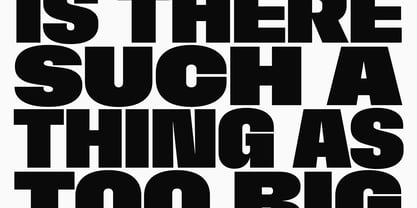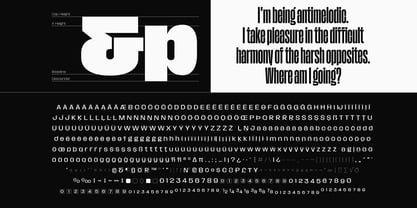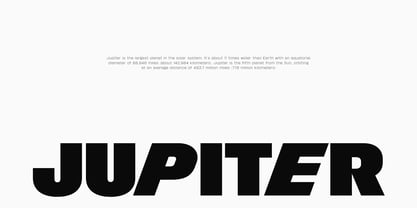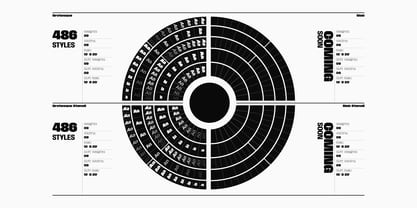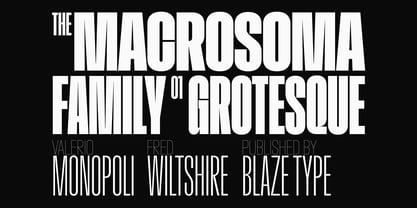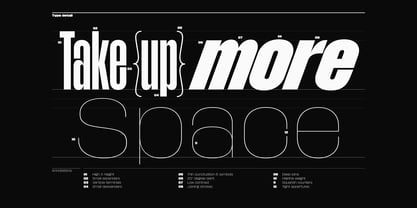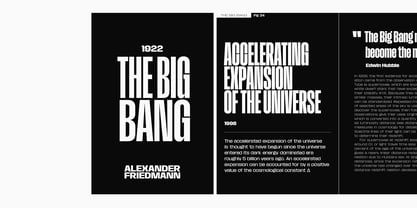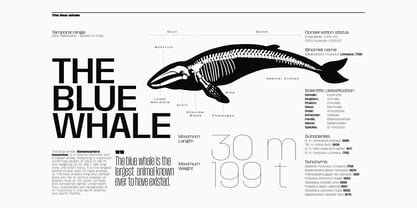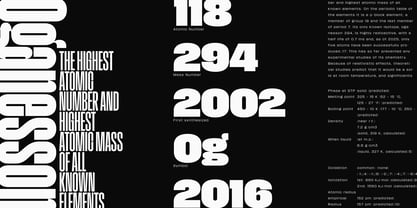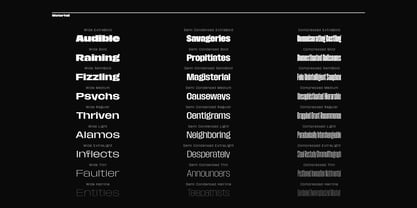
Macrosoma Grotesque
by Blaze Type
The Macrosoma Grotesque Font Family was designed by Fred Wiltshire, Valerio Monopoli and published by Blaze Type. Macrosoma Grotesque contains 81 styles and family package options.
Macrosoma might very well be the most expansive type family ever created. What began as a single-style condensed sans serif font has grown into an extraordinary collection of nearly two thousand single cuts. This impressive range spans almost every corner of the traditional typographic spectrum: from compressed to extended, hairline to black, sans and slab serif—each available in stencil form and with soft edges. Despite its remarkable versatility, Macrosoma remains a truly distinctive and instantly recognisable font. It boasts several unique features, such as exceptionally short ascenders and thin punctuation, which set it apart from its sans serif contemporaries. These signature traits ensure that no matter which member of this extensive family you choose, your design will retain its uniqueness and stand out effortlessly. Given the wide scope of the project, Macrosoma has been divided into eight subfamilies, which will be gradually released throughout 2025. The first two to debut are Macrosoma Grotesque and Macrosoma Grotesque Stencil